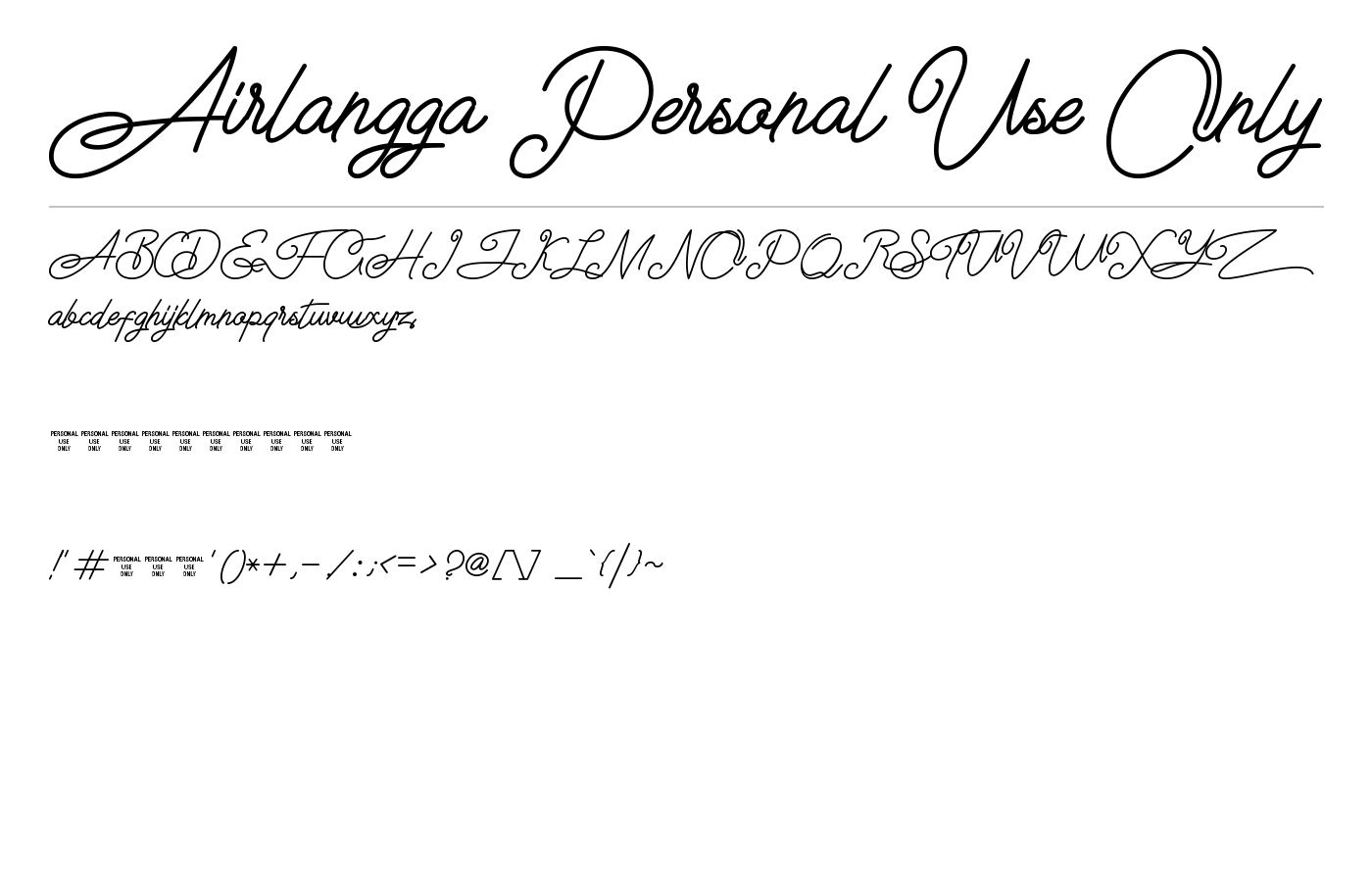
Airlangga Personal Use Only is an elegant, flowing script font with delicate, smooth strokes that mimic sophisticated handwriting. Its graceful letterforms and consistent stroke weight create a refined and stylish feel, making it ideal for invitations, branding, and other designs seeking an intimate and personal touch. This font works beautifully where a sense of elegance and warmth is desired, particularly in luxury or creative projects.
Airlangga Personal Use Only Font
About Airlangga Personal Use Only Font
| Designer | Fuad hasan |